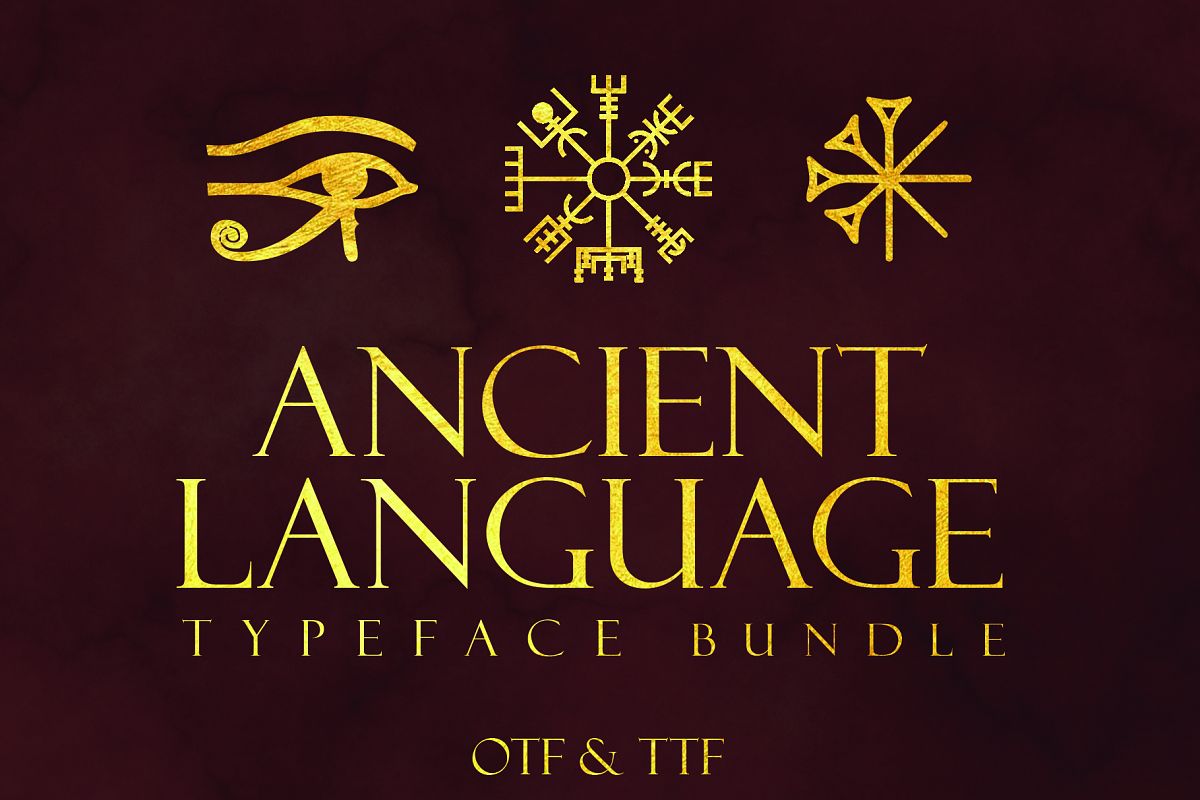
Ancient Languages Typeface Bundle
An incredible bundle of 3 ancient language typefaces: Cuneiform, the first system of writing in human civilization; Elder Furthark the language of the Vikings; Hieroglyphs, the language of the Egyptian people. These languages have been brought back from the past and made into fonts to bring your projects to life with authenticity. This typeface is perfect for logos, monograms, titles, games, posters, and more. All of these languages are very old and - although as accurate as possible - is by no means a perfect translating tool. Included are 7 EPS vector files and 5 PNG files of various ancient symbols as a bonus and as a thank you.